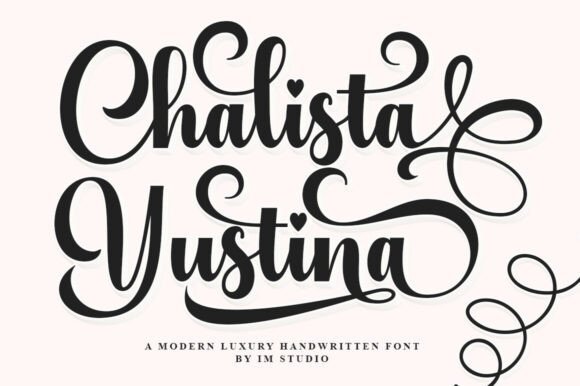
The Perfect Touch of Elegance: Unlocking the Power of Chalista Yustina Font
Have you ever found yourself staring at a blank design canvas, waiting for inspiration to strike? It’s a moment every creative knows all too well. For me, it was the perfect moment to introduce a new font that would elevate my designs to the next level. That’s when I discovered the enchanting Chalista Yustina Font.
This beautiful font exudes softness and elegance, making it the perfect addition to any design project. Whether you’re creating branding materials, designing wedding invitations, or crafting logos, Chalista Yustina Font is sure to bring a touch of sophistication and refinement. Its feminine touch and gentle strokes make it an invaluable asset for designers looking to add a personal and emotional connection to their work.
Chalista Yustina Font Key Features
- Font Style: Script, Calligraphy
- Unique Characteristics: Elegant, Handwritten, Whimsical, and Playful Script Font, suitable for invitations, wedding stationery, and creative projects
Review of Chalista Yustina Font
At first glance, the Chalista Yustina font seems like a promising choice for designers looking to add a touch of elegance to their projects. Here are some aspects that I think work well:
- ✨ Unique and stylish design: The Chalista Yustina font has a distinctive look that’s perfect for creating a sophisticated atmosphere.
- ⚠️ Limited expressiveness: The font’s unique design can sometimes feel restrictive, making it challenging to convey complex emotions or ideas.
- ⚠️ Not ideal for body text: Due to its ornate nature, Chalista Yustina might not be the best choice for large blocks of text, as it can be tiring to read.
Overall, I think the Chalista Yustina font is a great addition to any designer’s toolkit, but it’s essential to use it judiciously. It shines in situations where a touch of sophistication and elegance is required, but it may not be the best choice for projects that demand a more neutral or expressive tone.
Getting the Most Out of Chalista Yustina Font
Use Chalista Yustina Font to create unique and eye-catching designs. Experiment with different font sizes, colors, and combinations to achieve the desired effect.
– Headings and titles
– Quotes and phrases
Alternatives to Chalista Yustina Font
The Great Vibes Font is a modern, elegant script font perfect for creating a sophisticated and stylish design. It is ideal for use in invitations, greeting cards, and other special occasions. Compared to Chalista Yustina, Great Vibes has a more refined and polished look, making it suitable for formal events and high-end branding.
The Carolyna Pro Font is a beautiful, handwritten script font that exudes a sense of luxury and sophistication. It is ideal for use in high-end branding, invitations, and special occasions. Compared to Chalista Yustina, Carolyna Pro has a more refined and elegant look, making it suitable for formal events and premium products.
The Alex Brush Font is a elegant, handwritten script font that is perfect for creating a personal and intimate design. It is ideal for use in invitations, greeting cards, and other special occasions. Compared to Chalista Yustina, Alex Brush has a more delicate and refined look, making it suitable for formal events and personal branding.
The Dancing Script Font is a beautiful, modern script font that is perfect for creating a playful and energetic design. It is ideal for use in branding, advertising, and social media. Compared to Chalista Yustina, Dancing Script has a more vibrant and dynamic look, making it suitable for fun and youthful branding.
Project Ideas Using Chalista Yustina Font